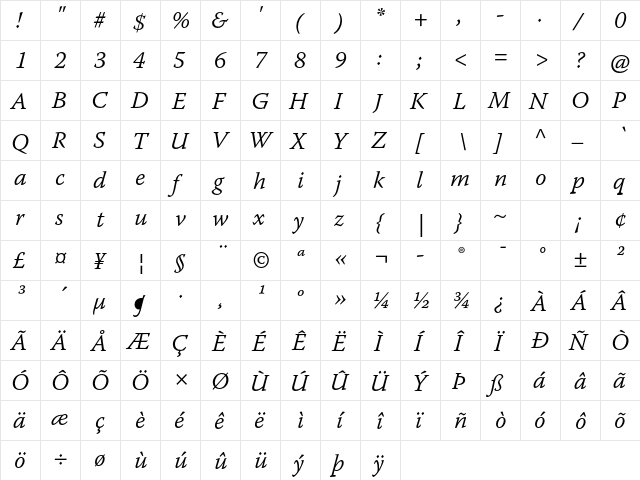
Warnock Pro Light Italic Caption
| Designer | Robert Slimbach |
Design Context for Warnock Pro Typeface
Warnock Pro takes a measured approach to typography — its balanced proportions and neutral character make it a reliable workhorse for both digital and print work. Its italic angle brings a sense of urgency and motion to the letterforms. Its slender proportions lend an understated elegance to any composition.
Pro Tip: Try Warnock Pro for annotation and caption copy alongside an upright companion — the contrast in angle creates a dynamic but ordered typographic system.